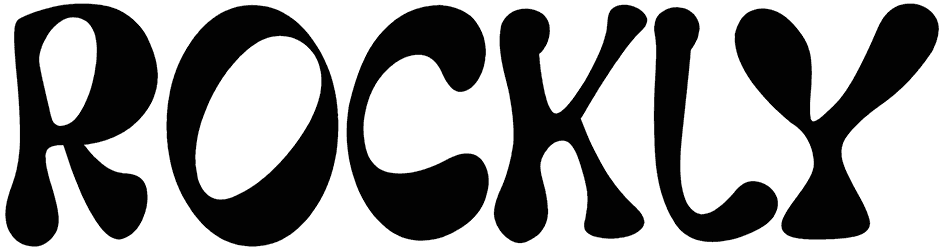
Rockly Font
Build a nice, funny character for your artwork with the perky letters of Rockly and let your words show your friendly attitude. The lowercase set is not available, but you can always count on this sweet, groovy font for your ice cream posters, game packaging, or else.
It’s a gift to be able to reach out to the audience in such an entertaining tone and get to win them over with your text styled in a silly font like Rockly.